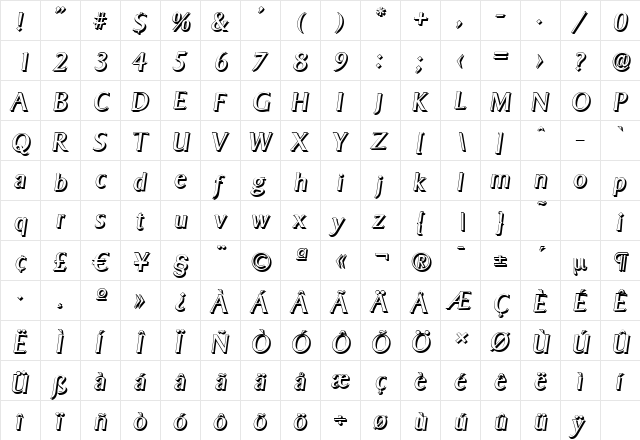
SigvarShadow Italic
Design Context for SigvarShadow Typeface
SigvarShadow is built around its visual character rather than neutral utility — its distinctive forms are designed to make an impression at display sizes. Its italic angle brings a sense of urgency and motion to the letterforms.
Font Pairing: Pair with a clean neutral sans-serif for body copy to let SigvarShadow's character lead without overwhelming the composition.
Pro Tip: Treat SigvarShadow as the centrepiece of your typographic hierarchy. One strong heading set in a decorative face can carry an entire layout.